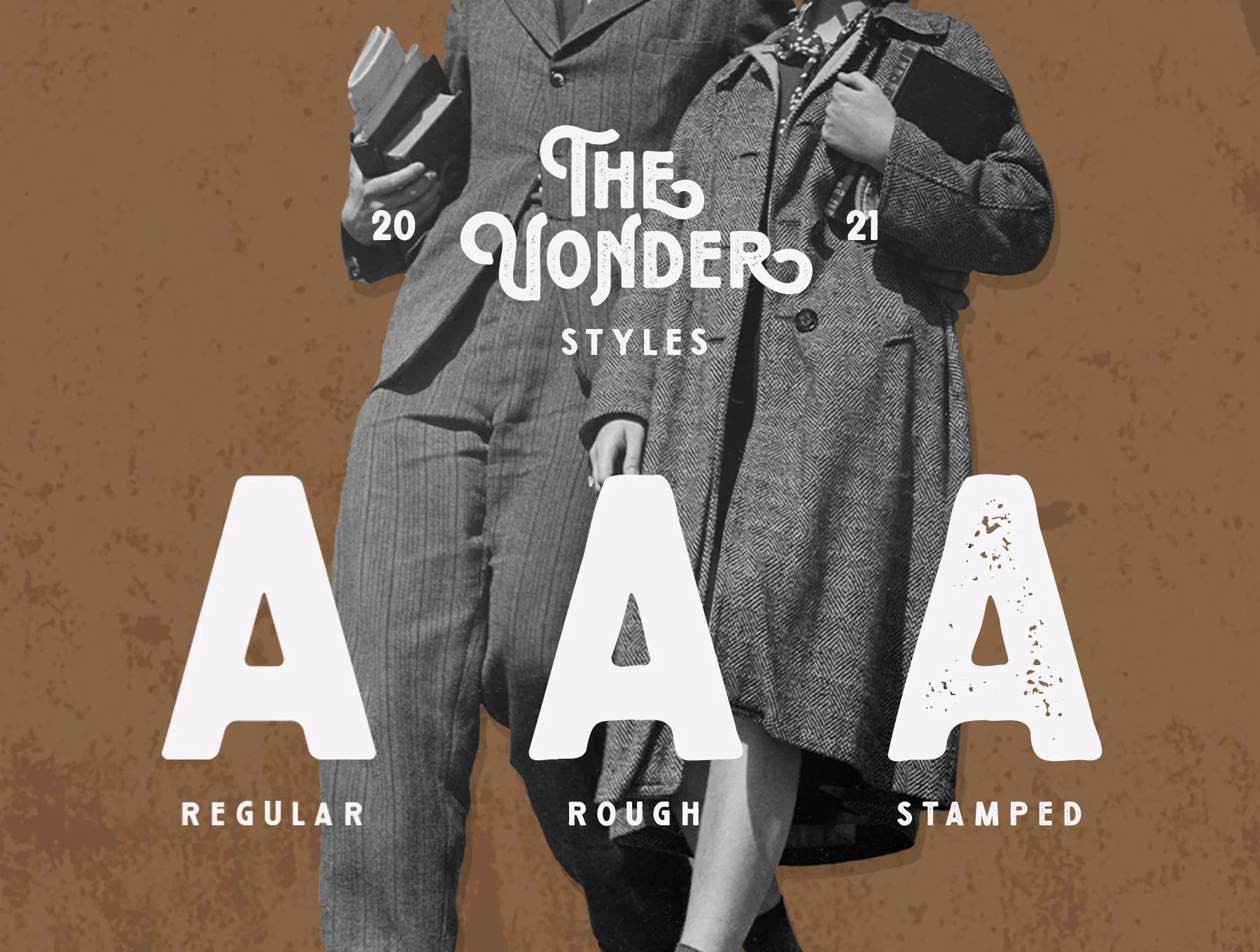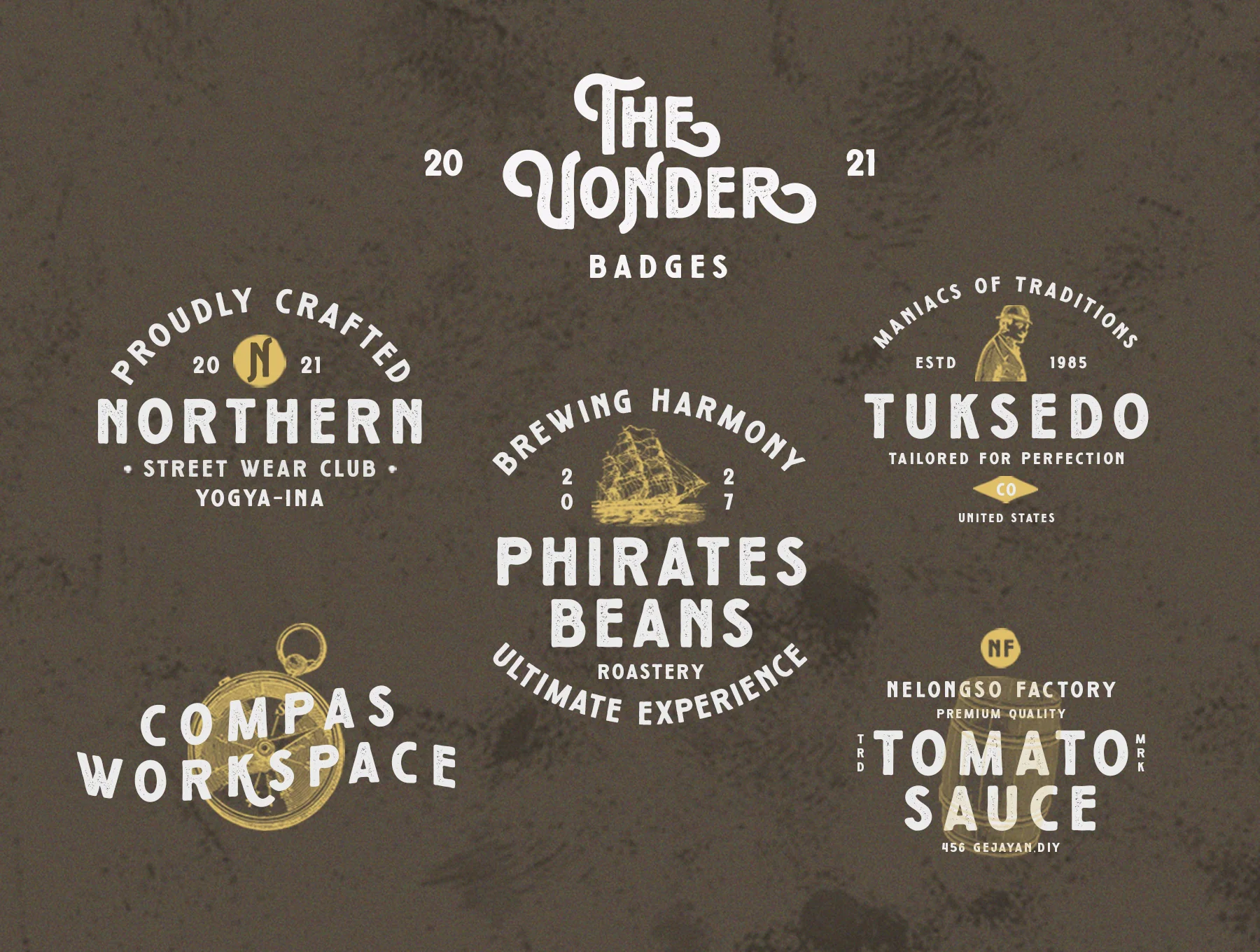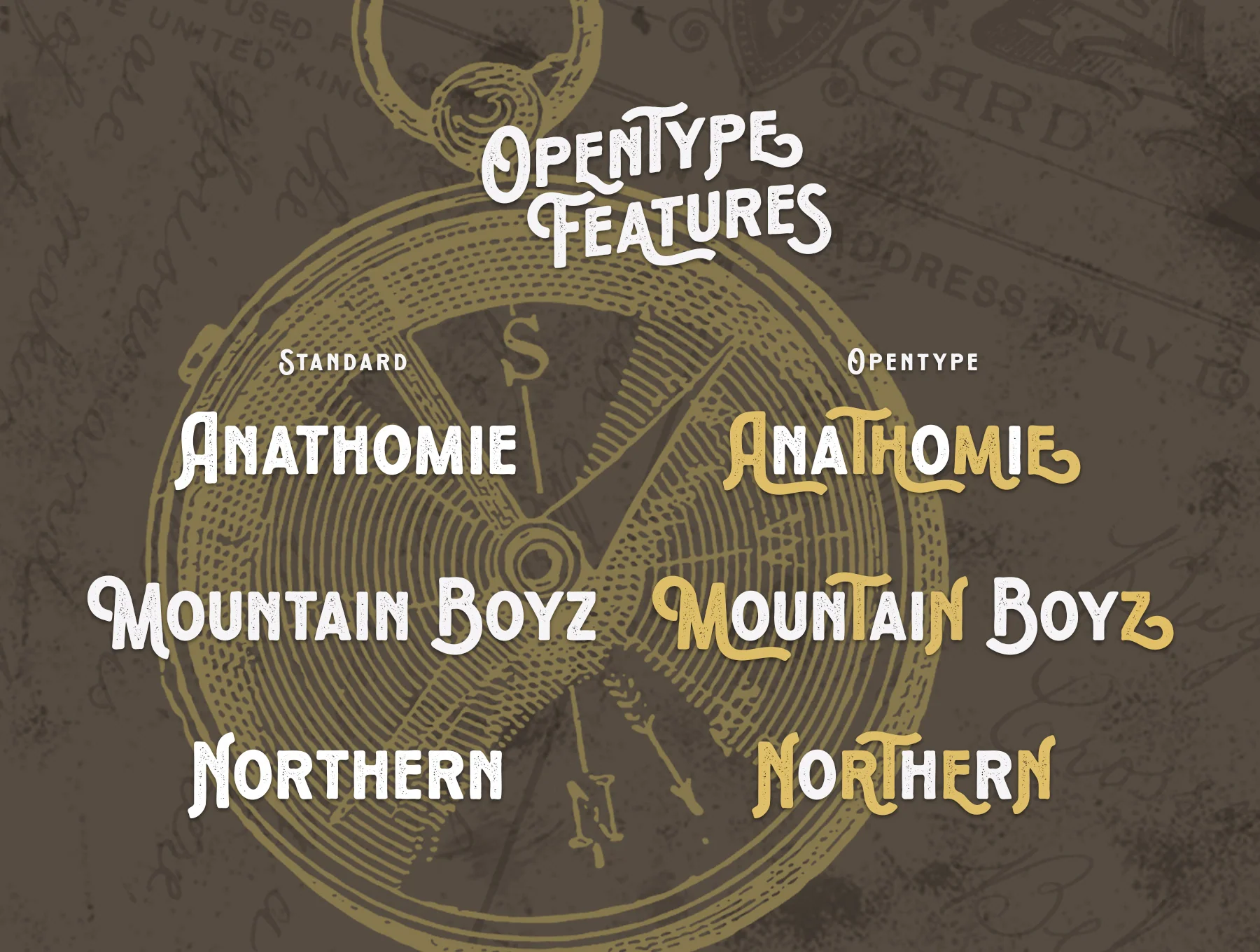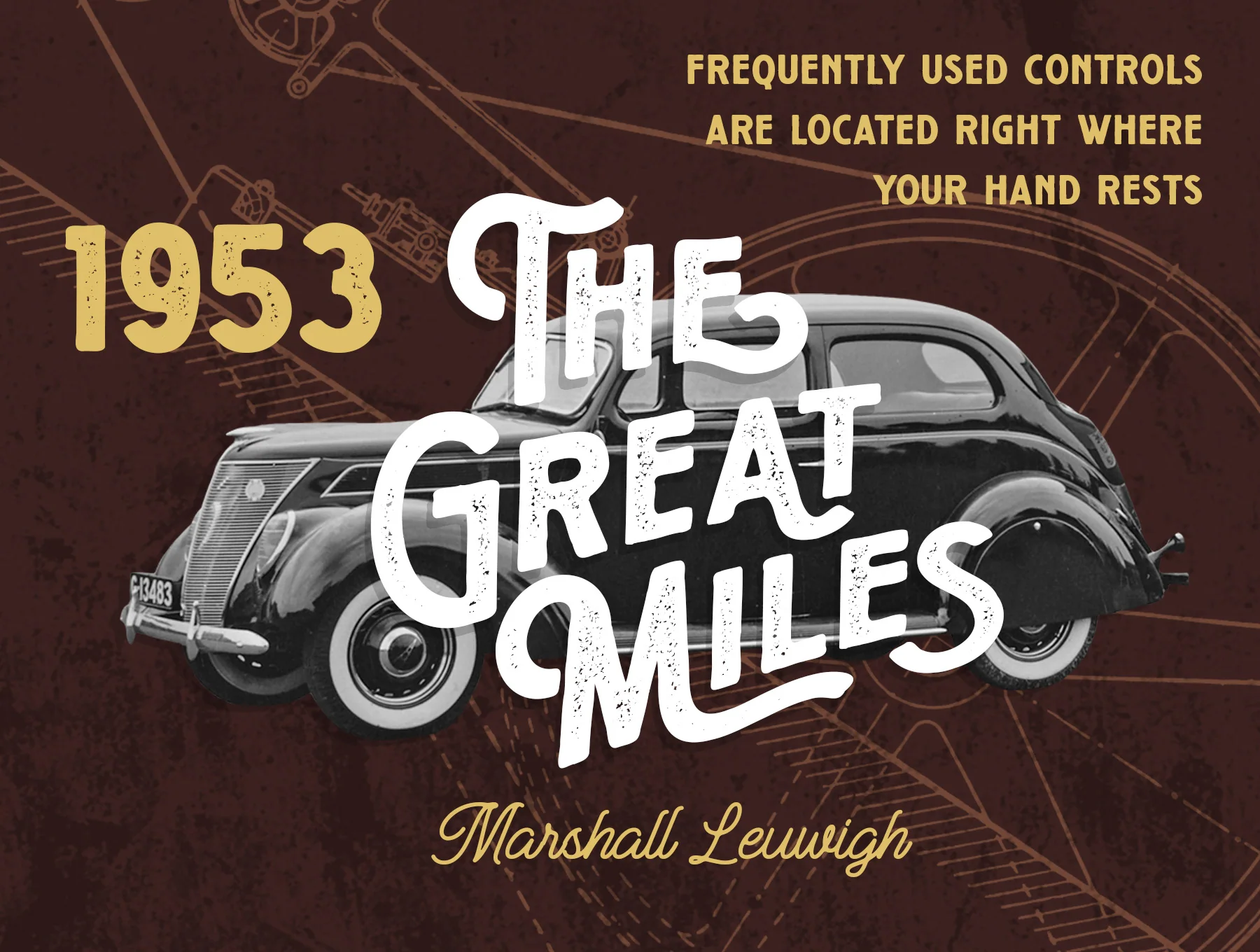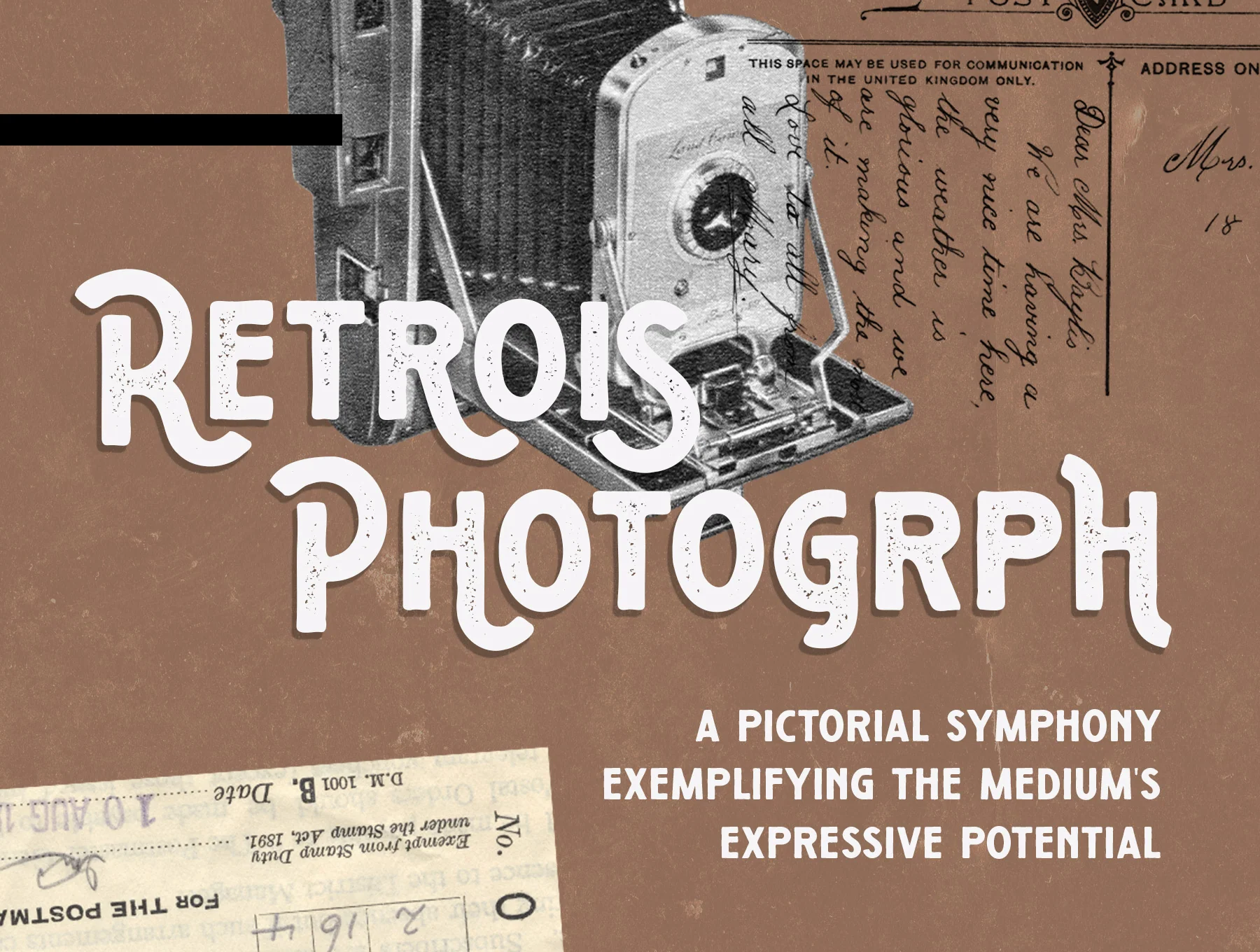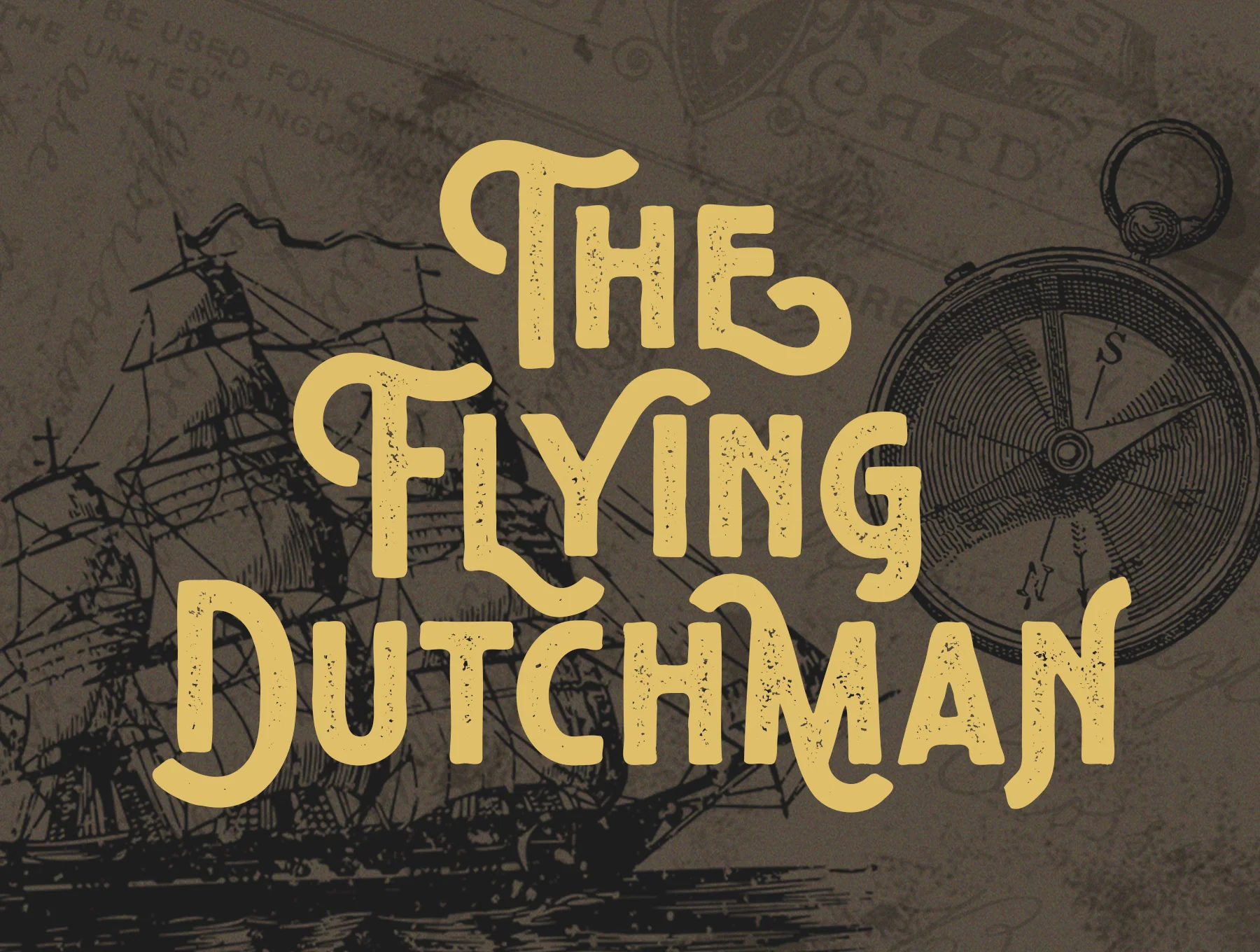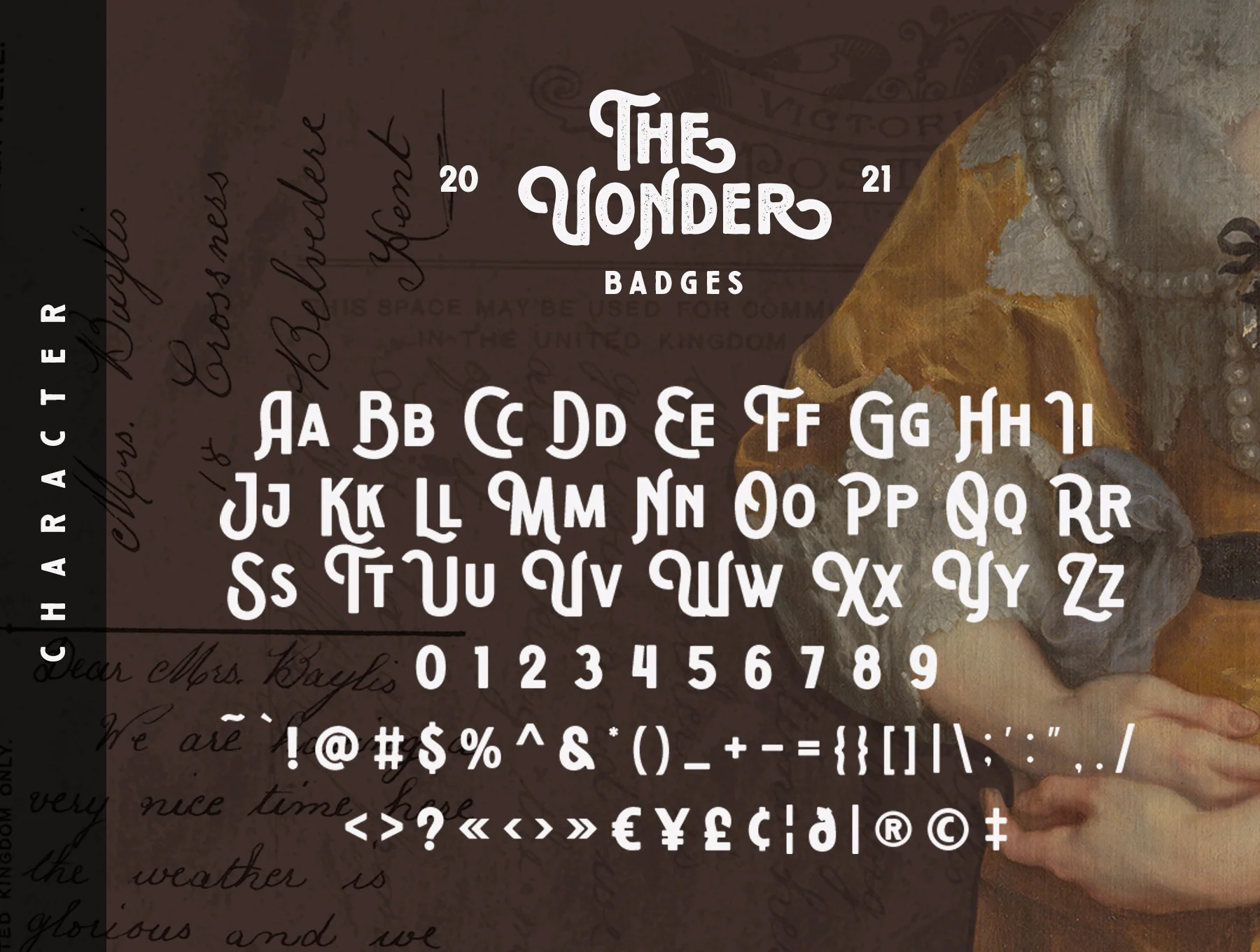
Vonder - Vintage Display Font
A vintage grunge sans serif with decorative character
Capital letters, numbers, and punctuation
Multilingual language support
Alternate styles and ligature options
Vonder’s is a bold hand-drawn display font with textured, rustic stamped character and vintage charm. Ideal for apparel branding, retro posters, signage, and aged-style designs, it includes all-caps letters plus many alternates. Files: Vonder Regular, Rough, and Stamped. Access alternates via Glyphs in Adobe Photoshop or Illustrator.